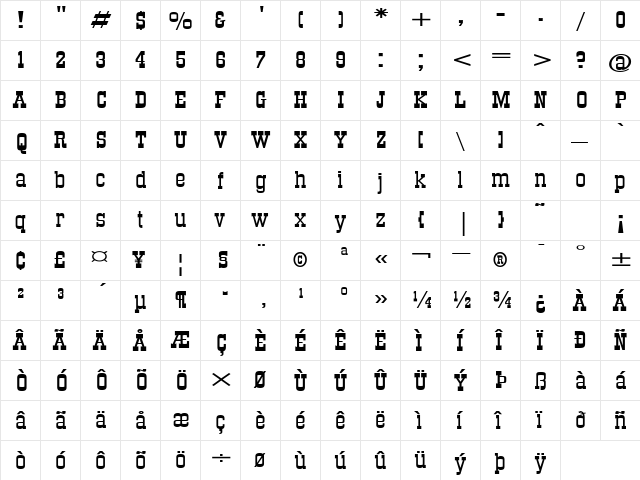
StagecoachExtended Regular Font Preview
StagecoachExtended Regular
Design Context for StagecoachExtended Typeface
StagecoachExtended takes a measured approach to typography — its balanced proportions and neutral character make it a reliable workhorse for both digital and print work.